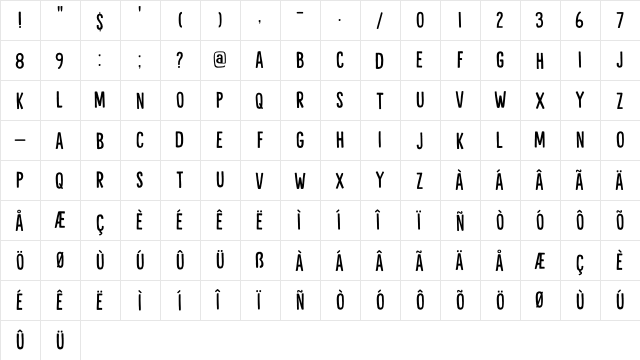
Liquid Amber DEMO Regular
| Foundry | David Kerkhoff |
| Designer | David Kerkhoff |
Design Context for Liquid Amber DEMO Typeface
Liquid Amber DEMO takes a measured approach to typography — its balanced proportions and neutral character make it a reliable workhorse for both digital and print work.
Pro Tip: Use Liquid Amber DEMO in both headline and body roles to test its range before committing to a single application.